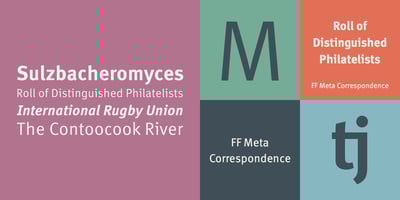
FF Meta Correspondence Font Family was designed by Ole Schäfer, Erik Spiekermann and published by FontFont. FF Meta Correspondence contains 4 styles and family package options. German type designer Erik Spiekermann created this sans FontFont between 1997 and 2002. The family contains 4 weights: Regular, Italic, Bold, and Bold Italic and is ideally suited for logo, branding and creative industries. FF Meta Correspondence provides advanced typographical support with features such as ligatures, alternate characters, case-sensitive forms, fractions, super- and subscript characters, and stylistic alternates. It comes with a complete range of figure set options – oldstyle and lining figures, each in tabular and proportional widths. As well as Latin-based languages, the typeface family also supports the Cyrillic and Greek writing systems. This FontFont is a member of the FF Meta super family, which also includes FF Meta, FF Meta Headline, and FF Meta Serif.Featured in: Best Fonts for Cover Letters